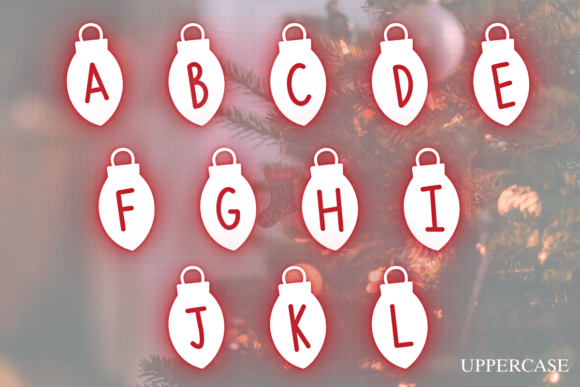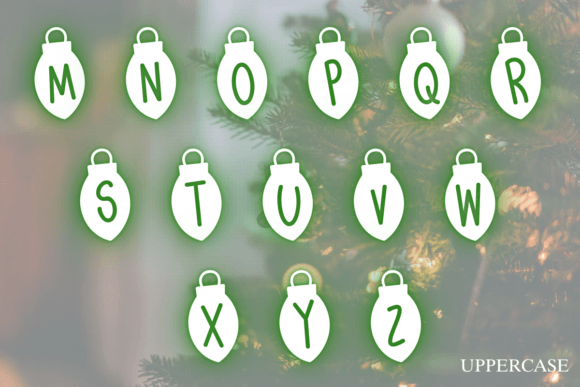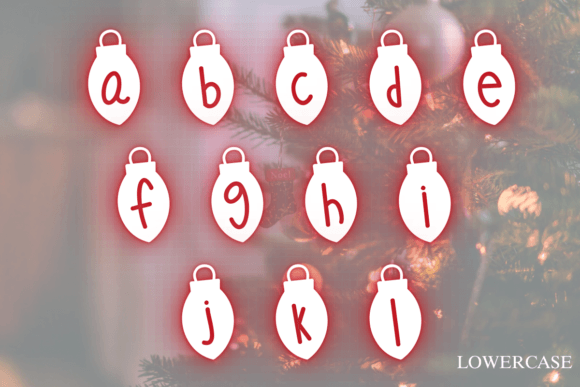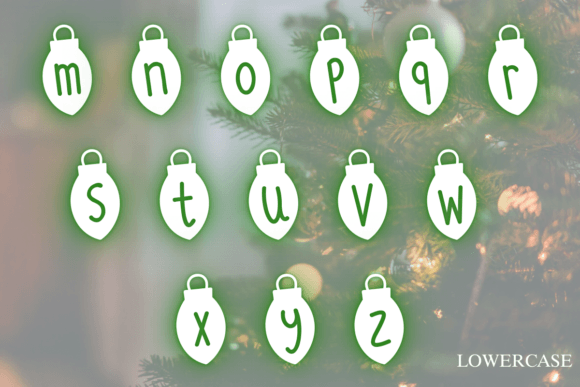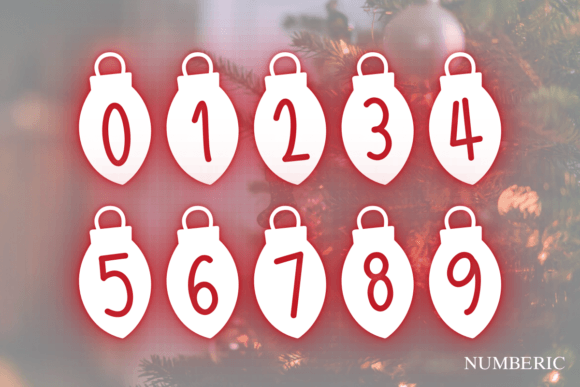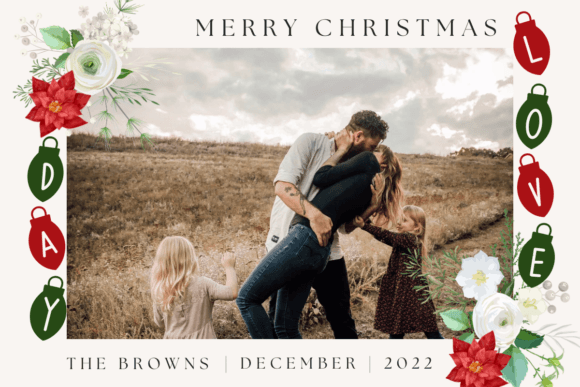
Deck the Halls with Christmas Light Font: A Festive Typography for Holiday Cheer
As the holiday season approaches, designers and crafters are on the lookout for unique and festive typography to add a touch of magic to their Christmas decorations, cards, and projects. Look no further than the “Christmas Light” font, a decorative typeface that embodies the spirit of the season. In this article, we’ll explore the enchanting features of Christmas Light Font and how it can elevate your holiday designs.
What is Christmas Light Font?
Christmas Light Font is a decorative font where each letter is carefully crafted inside a festive Christmas bauble. The letters appear to glow inside the round, colorful ornaments, creating a mesmerizing effect that’s sure to captivate your audience. This charming font is perfect for adding a dash of holiday cheer to your designs, whether you’re creating Christmas cards, decorations, or social media graphics.
Key Features of Christmas Light Font
- Unique Bauble Design: Each letter is nestled inside a colorful Christmas bauble, giving the font a distinctive and eye-catching appearance.
- Glowing Effect: The letters seem to glow from within, adding a warm and cozy ambiance to your designs.
- Festive and Fun: Christmas Light Font exudes a playful and festive spirit, making it ideal for holiday-themed projects.
- High-Quality Design: The font is meticulously crafted to ensure crisp and clear rendering, even at small sizes.
Uses for Christmas Light Font
Christmas Light Font is an incredibly versatile typeface that can be used in a variety of creative projects. Here are some ideas to get you started:
- Christmas Cards and Invitations: Add a touch of festive flair to your holiday cards and invitations with Christmas Light Font.
- Holiday Decorations: Use the font to create eye-catching decorations, such as garlands, banners, and signs.
- Social Media Graphics: Add some holiday cheer to your social media posts with Christmas Light Font.
- Packaging and Labels: Use the font to create festive packaging and labels for your holiday products.
Tips for Using Christmas Light Font
To get the most out of Christmas Light Font, here are some tips to keep in mind:
- Pair with Complementary Fonts: Combine Christmas Light Font with complementary fonts to create visually appealing typography.
- Experiment with Colors: Try out different color schemes to match your brand or project’s aesthetic.
- Use Sparingly: Use Christmas Light Font sparingly to avoid overwhelming your design.
Christmas Light Font is a delightful and festive typeface that’s sure to bring holiday cheer to your designs. With its unique bauble design, glowing effect, and high-quality craftsmanship, this font is perfect for designers and crafters looking to add a touch of magic to their holiday projects. Whether you’re creating Christmas cards, decorations, or social media graphics, Christmas Light Font is sure to be a hit. So why wait? Get creative with Christmas Light Font and deck the halls with festive typography!